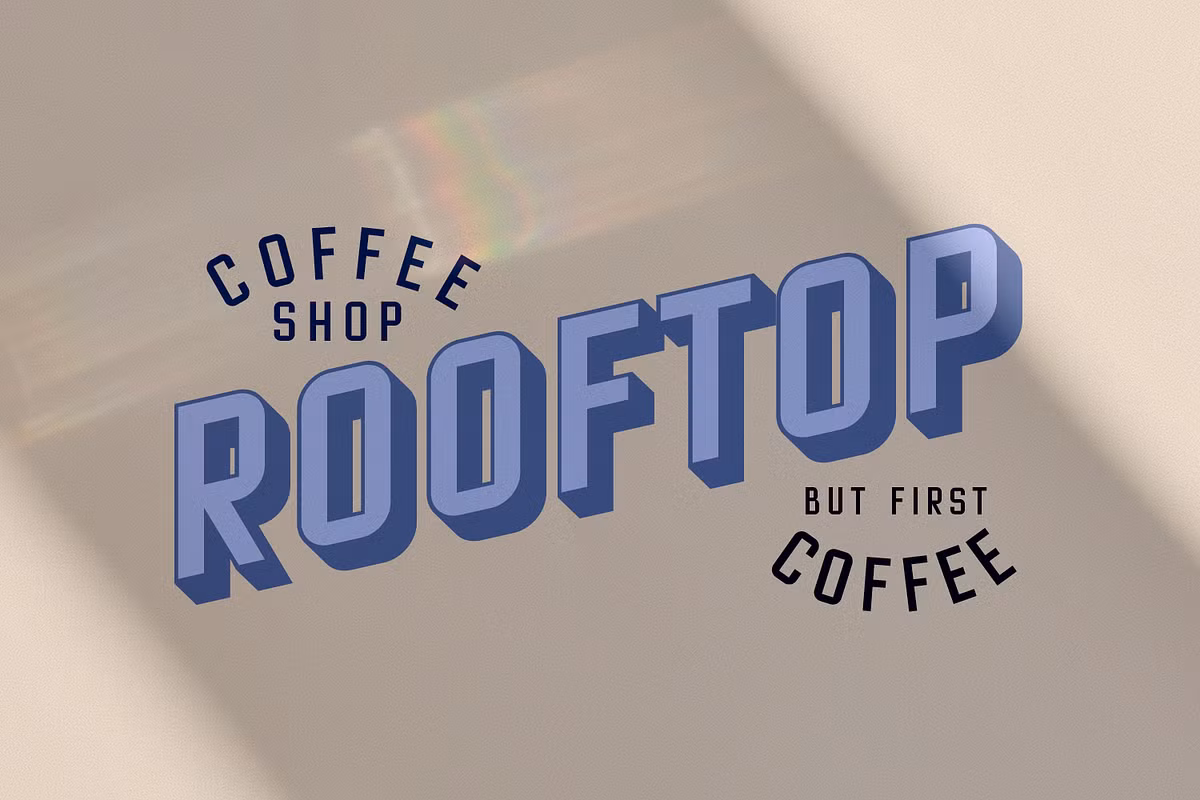
Cheapsman Sans Serif Display
Cheapsman Sans Serif Display: Versatile Font for Creative Projects
Introduction to Cheapsman Font
Cheapsman Font is a versatile Sans Serif Display font that stands out because of the look and the many variations. Cheapsman Font comes in the four styles—Outline, Extruded and Slant—so designers get choices without having to change a lot of the design work. If you are working on a logo, a product package or an editorial project Cheapsman Font can meet your needs. Save you time.
Example of Cheapsman font styles
Various styles of Cheapsman Font
Design Style and Features
The Cheapsman Font has a design. I find the Cheapsman Font easy to read. The Cheapsman Font is a Sans Serif typeface. The Cheapsman Font is a display font that catches the eye and makes a impact. The Cheapsman Font offers four styles, each giving a look. The Regular style of the Cheapsman Font is plain and clear. The Outline style of the Cheapsman Font adds an outline, for flair. The Extruded style gives a three effect. The three dimensional effect adds depth to your designs. The Slant style adds a perspective. The dynamic perspective energizes your typography.
One of the things, about the Cheapsman Font is the many OpenType features that the Cheapsman Font provides. The people can use letters and joined letters with the Cheapsman Font OpenType features. This lets the people change the look of the text more. The text can look good. The text can also match the brand or the project.
• Four Unique Styles: Regular, Outline, Extruded, and Slant.
• OpenType Features: Access to alternate letters and ligatures for customization.
• Multilingual Support: Offers a wide range of language options.
I have used Cheapsman Font. I see that Cheapsman Font includes both the uppercase and the lowercase letters. Cheapsman Font also includes the numbers and the punctuation. The full set of characters lets you create any design without hitting limits. When I work with Cheapsman Font I notice that Cheapsman Font supports languages. Cheapsman Font includes English, French, Italian, Spanish, Portuguese, German and more. Cheapsman Font is a choice, for a brand or a project that reaches many people.
I often use the PUA encoding, in Cheapsman Font to get special characters fast. The PUA encoding is very helpful, for designers who want to add symbols or style details to their work. The PUA encoding means designers do not have to search character sets.
I like the Cheapsman Font because the Cheapsman Font is flexible. I use the Cheapsman Font for projects. Below are some ways to use the Cheapsman Font:
• Logo Design: Cheapsman uses distinct styles. Bold and distinct styles help Cheapsman create logos that stand out.
• Clothing Branding: Its modern aesthetic aligns well with fashion brands looking to convey a contemporary image.
• Product Packaging: Use Cheapsman Font to make the product labels and the packaging look better. Product Packaging, with Cheapsman Font catches the consumer’s attention.
• Magazine Headers: I notice that the display style of the font makes the font work well for the magazine headlines and titles.
• Text Overlays: I find Cheapsman Font works as an overlay, on the background images. Cheapsman Font adds depth and character to the background images.
In conclusion, the Cheapsman Font’s adaptability makes it an excellent choice for various creative projects, ensuring that your designs stand out and resonate with your audience.